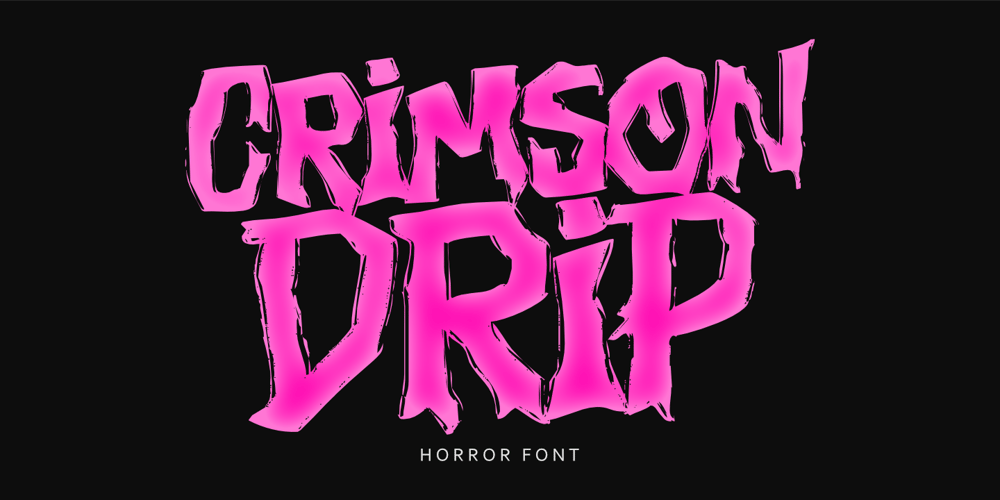
Crimson Drip Font Family was designed by Nurul Hidayani and published by Olivetype. Crimson Drip contains 1 styles and family package options. Crimson Drip is a spine-chilling horror font that oozes with personality—literally. Designed with hand-drawn brush strokes and textured details, it evokes the image of dripping blood, splattered ink, or ominous shadows creeping across the page. With uneven, jagged edges and a distressed texture, the font exudes an organic, unsettling quality perfect for invoking terror. Subtle “drip” elements adorn select letters, simulating the look of blood or slime slowly trailing down, while a grungy, worn texture adds a weathered, eerie touch. Its uneven alignment and irregular sizing give it a wild, unpredictable feel, amplifying its horror vibe.This font is ideal for horror movie titles, poster designs, and game graphics, adding a blood-soaked edge to any visual project. It’s also perfect for merchandise like t-shirts or stickers, and for creating eye-catching Halloween or horror-themed social media content. Whether for haunted attractions, spooky event announcements, or midnight thrillers, Crimson Drip delivers the perfect balance of terror and creativity, leaving audiences with chills and a lasting impression.Crimson Drip features : Standard Latin Numbers, symbols, and punctuations Multilingual Support. Fully accessible without additional design software Simple Installations Works on PC & Mac Thank You